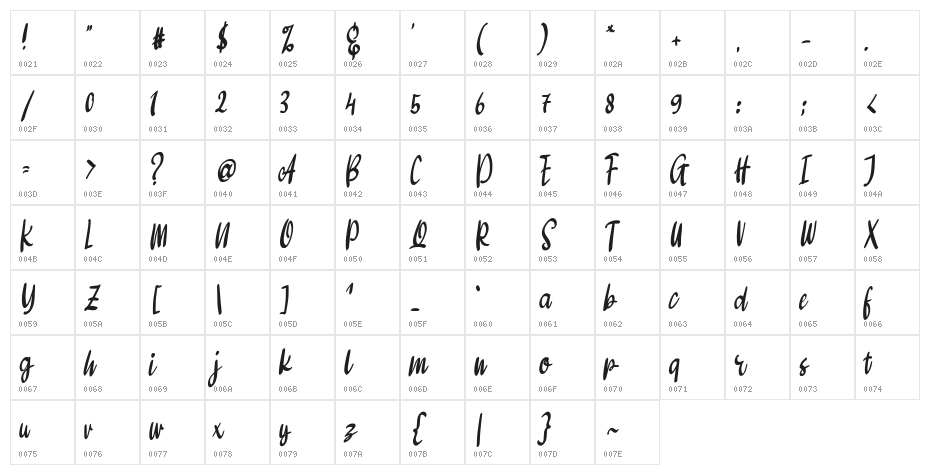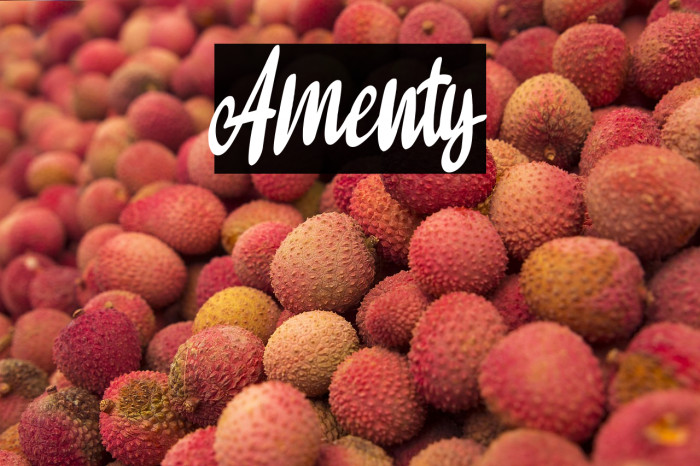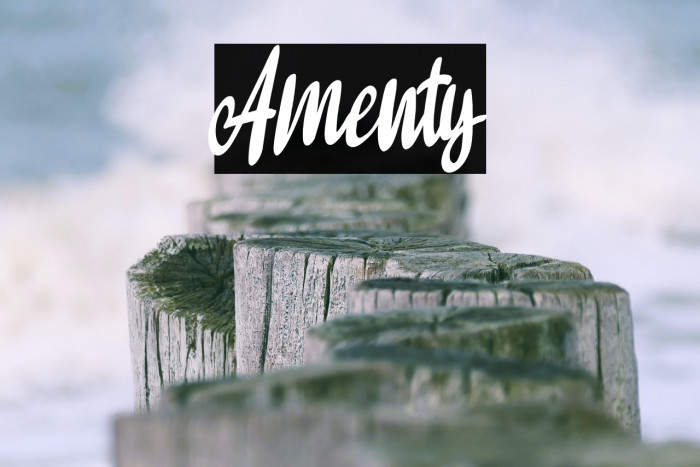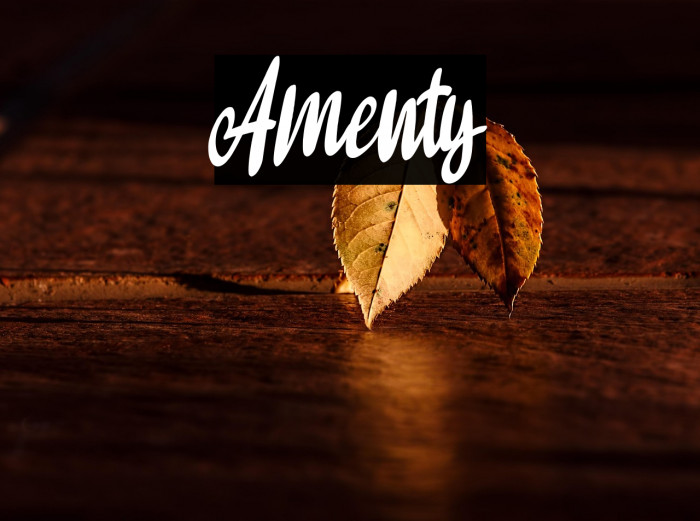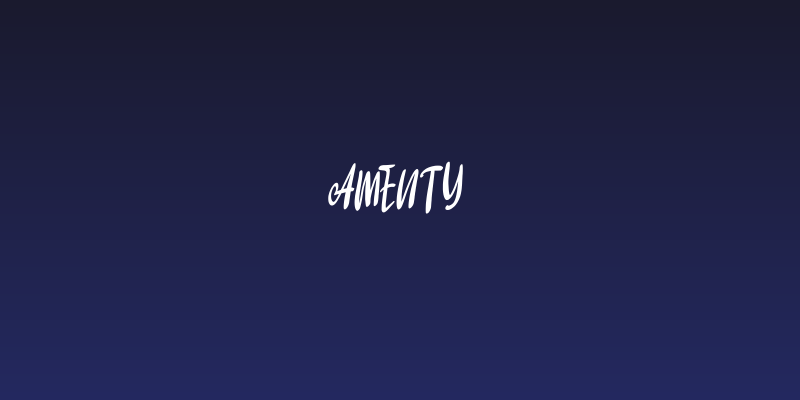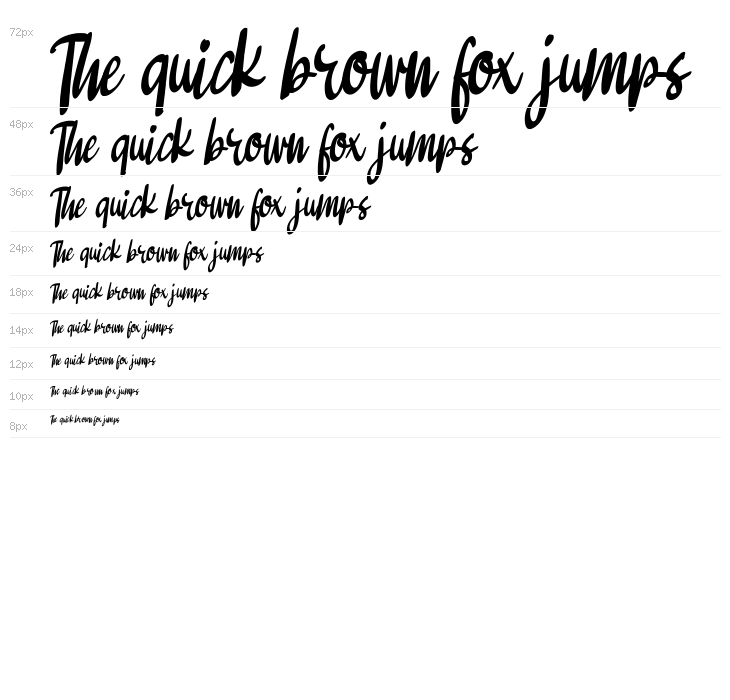
Amenty Font
Amenty Description
This font features a bold and expressive handwritten style, characterized by its fluid and dynamic strokes. The letters exhibit a playful and casual appearance, with a slight slant that adds to its energetic vibe. The uppercase and lowercase letters maintain a consistent style, with smooth curves and a slightly exaggerated height. The numerals and special characters are crafted with the same attention to detail, ensuring a cohesive look across all elements. This font is ideal for projects that require a personal touch, such as invitations, greeting cards, or branding materials.